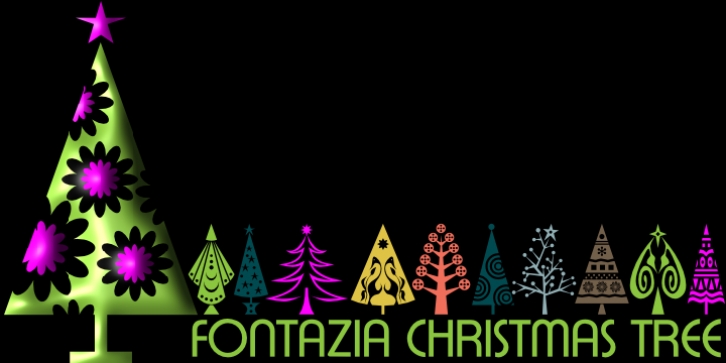
Fontazia Christmas Tree was designed by Denise Koehler and published by Deniart Systems. Fontazia Christmas Tree contains 1 style.
Add a little flair to the holiday season with Fontazia Christmas Tree featuring 62 elegantly simple tree illustrations inspired by the art deco movement. These stylish tree motifs are sure to add pizzazz to all your holiday designs.